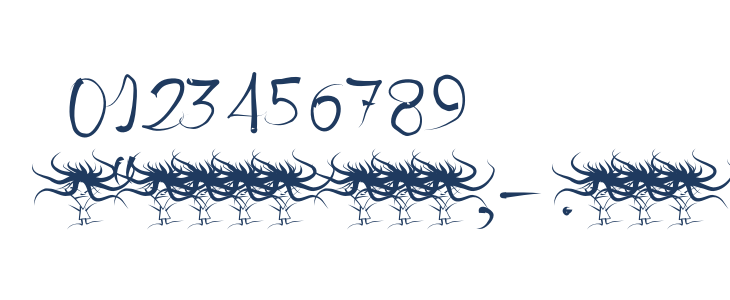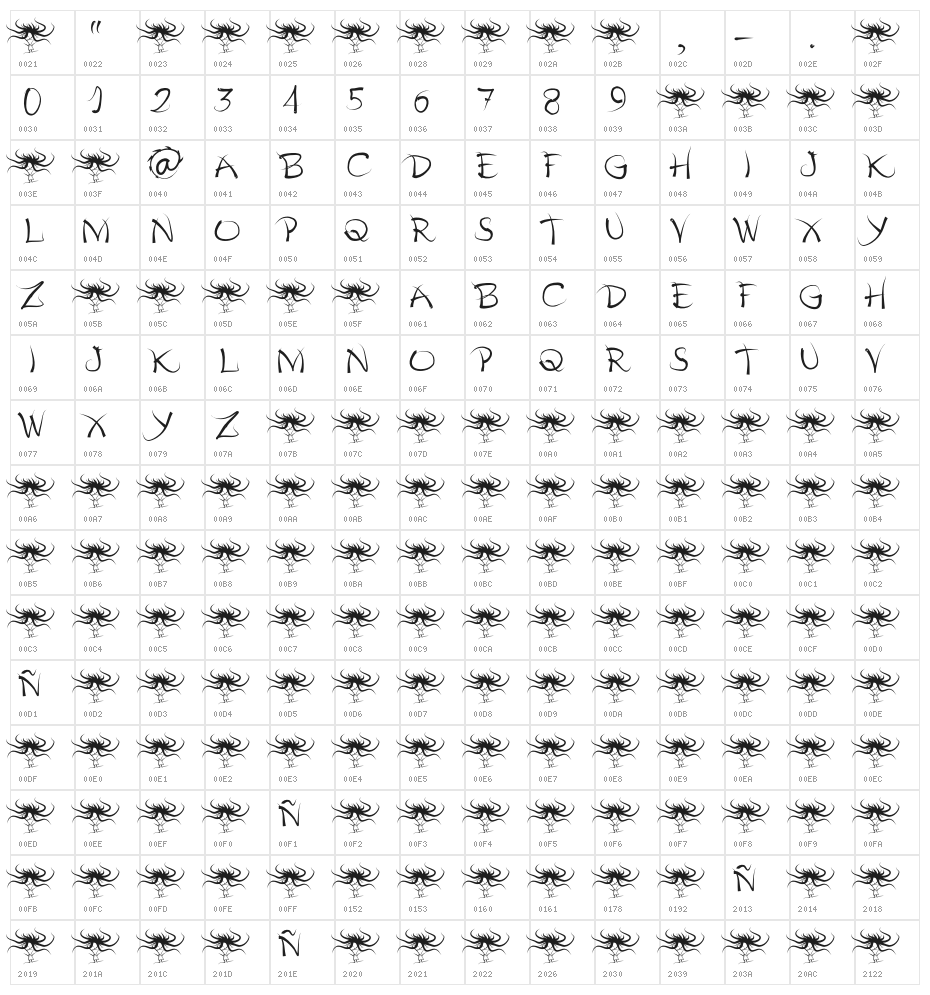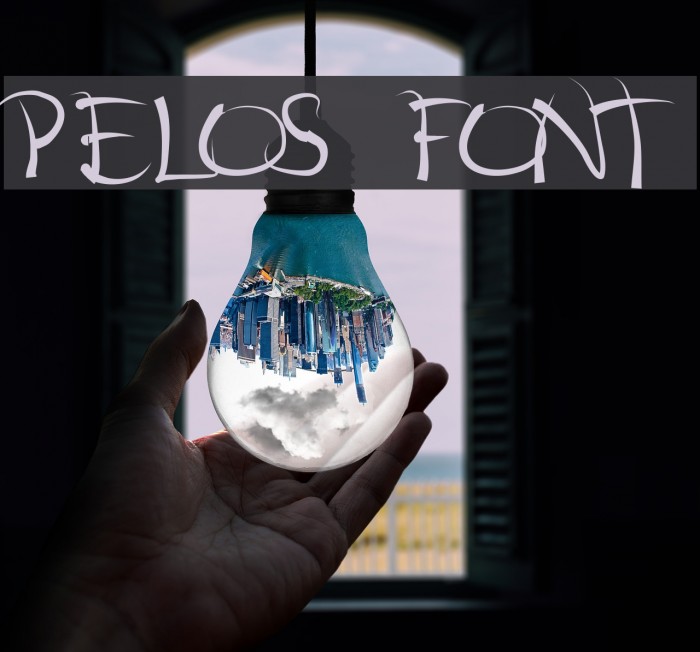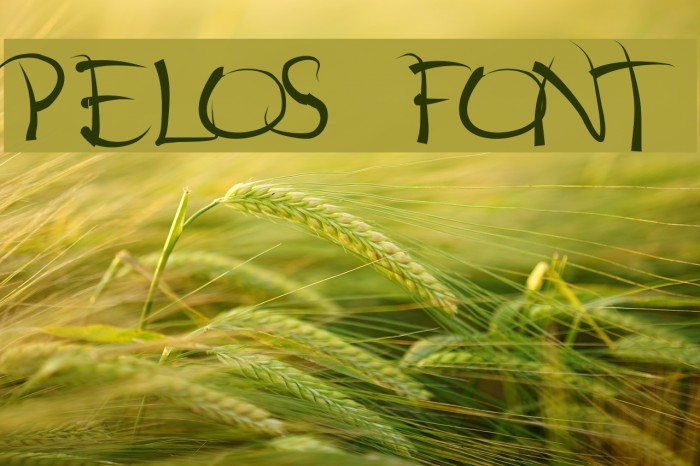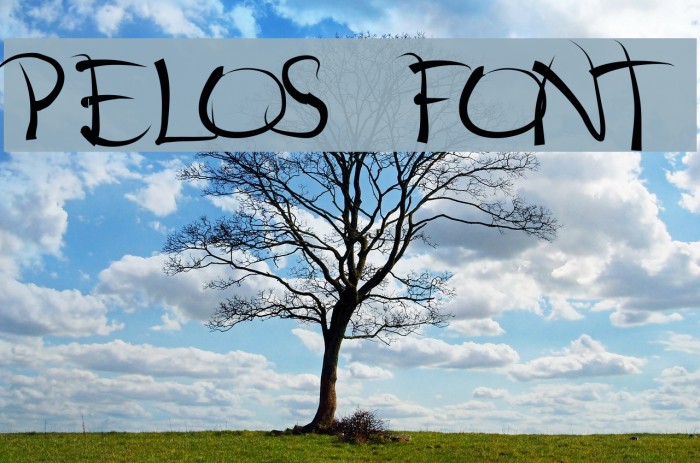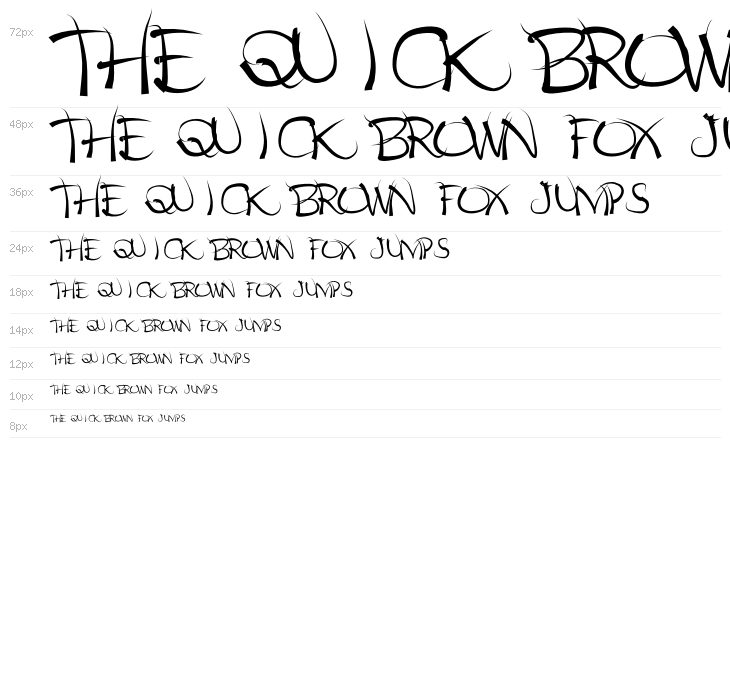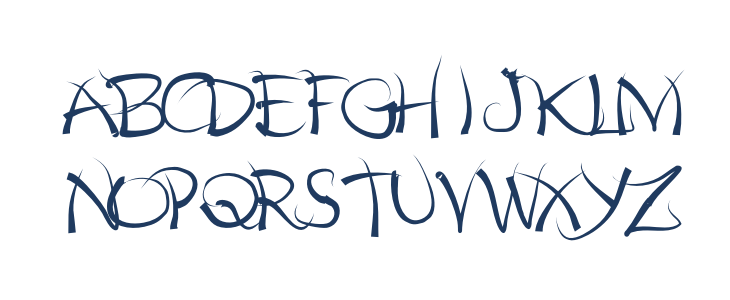
pelos Font
pelos Description
This font exhibits a unique and artistic style, characterized by its dramatic and exaggerated strokes. The letters have a flowing, almost calligraphic appearance with sharp, pointed ends and swirling embellishments that give it a dynamic and energetic feel. The uppercase and lowercase letters maintain a consistent style, with a playful yet elegant flair. The numbers follow the same artistic theme, making them stand out with their bold and creative design. Special characters are equally ornate, adding to the overall decorative nature of the font. This font is ideal for projects that require a bold statement or an artistic touch.